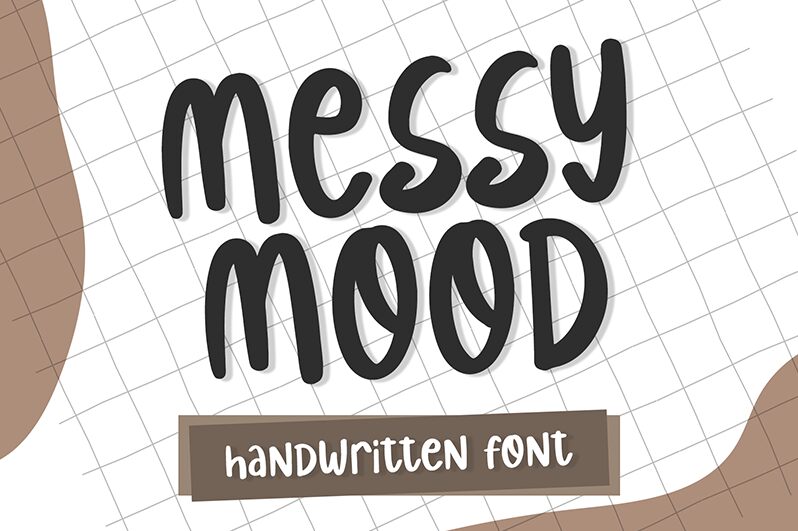
Messy Mood is a handwritten font designed by Muhammad Hisyam Rivai. This font is perfect for projects that require an artistic, yet easy to read vibe, such as postcard designs, magazine layouts, and book covers.